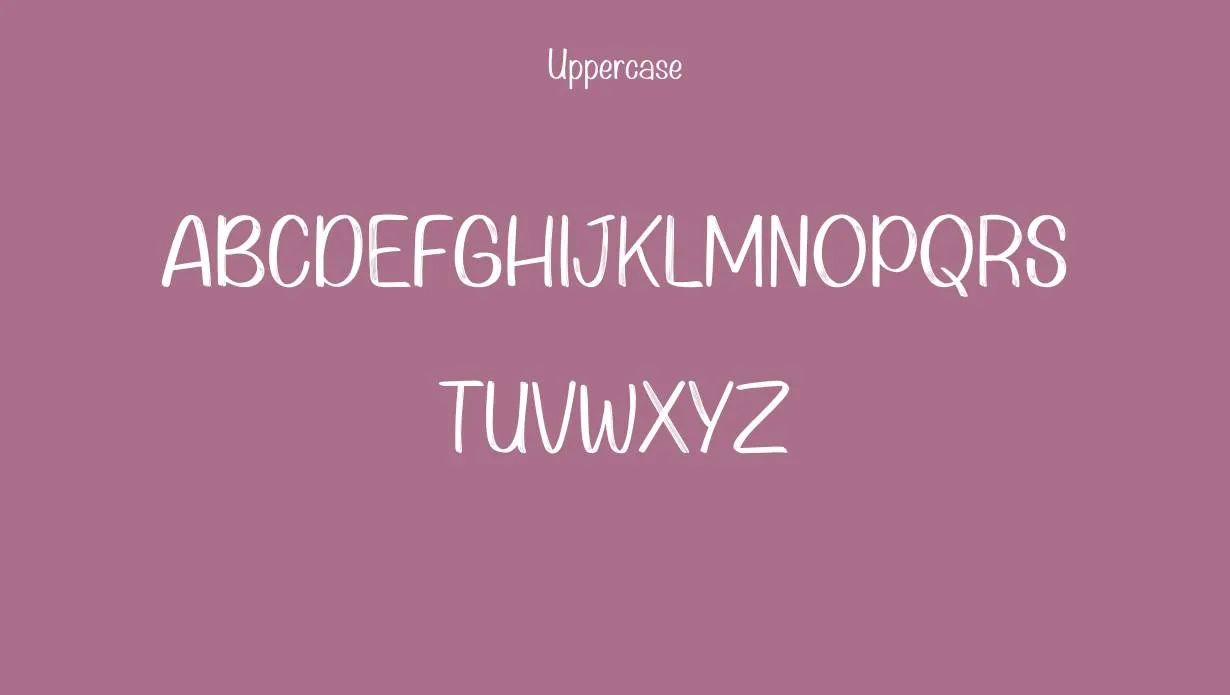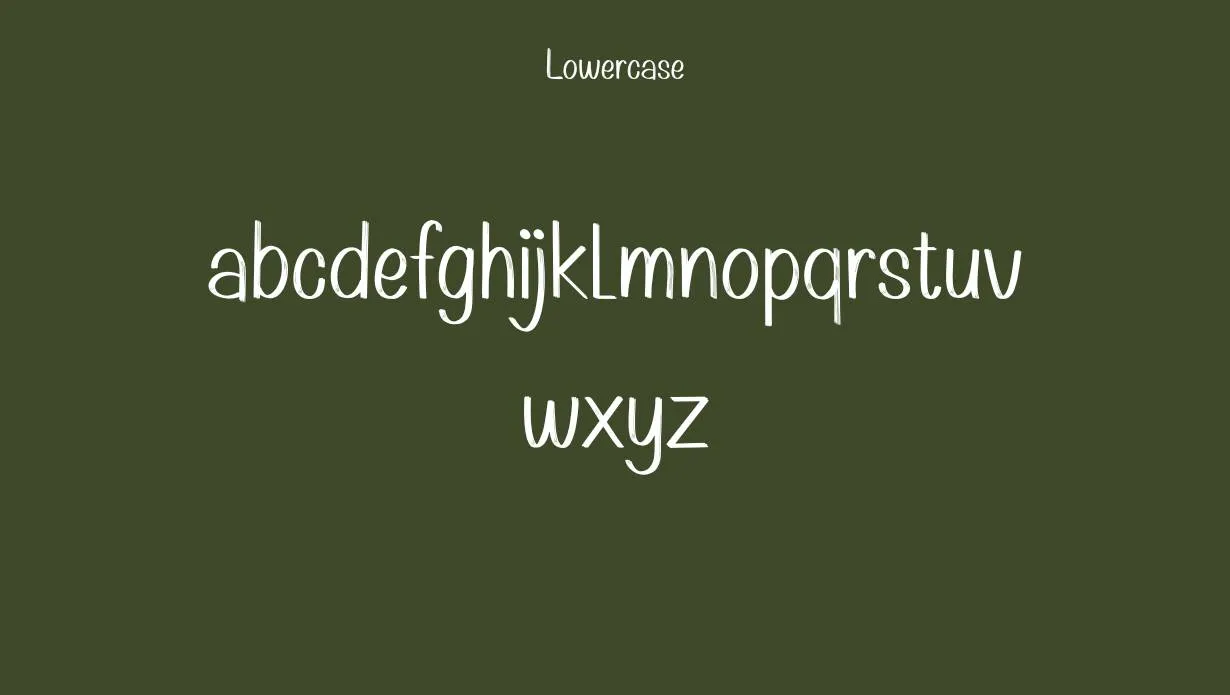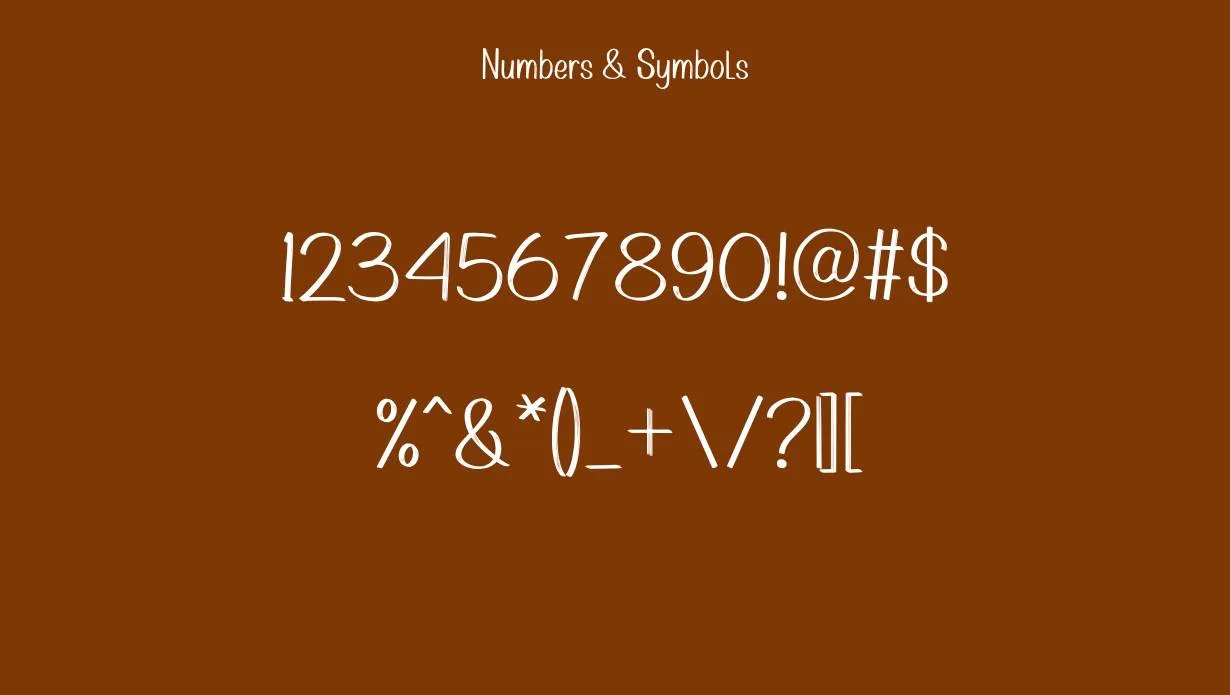
We are excited to announce the Procreate Font, a script font created by Sugeng Choirul. It is available in both TTF and OTF formats.
| Name | Procreate Font |
| Designer | Sugeng Choirul |
Procreate Font Family